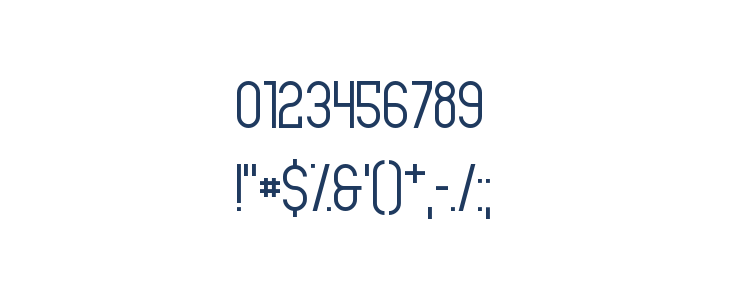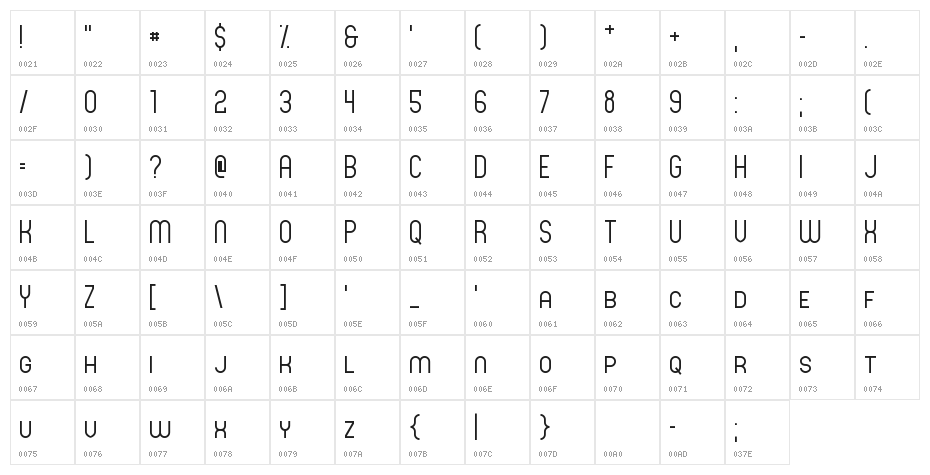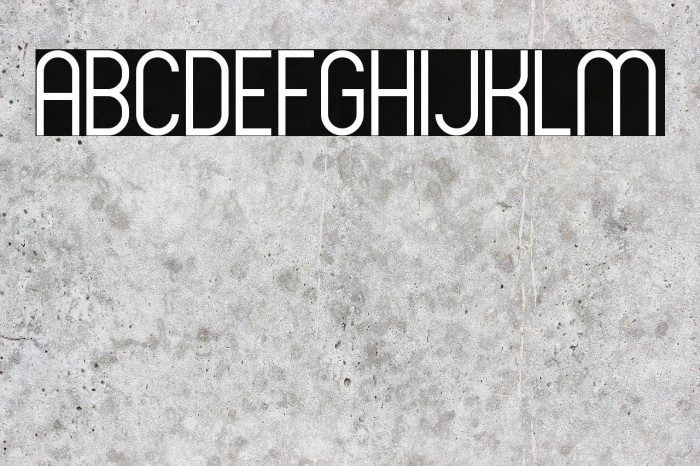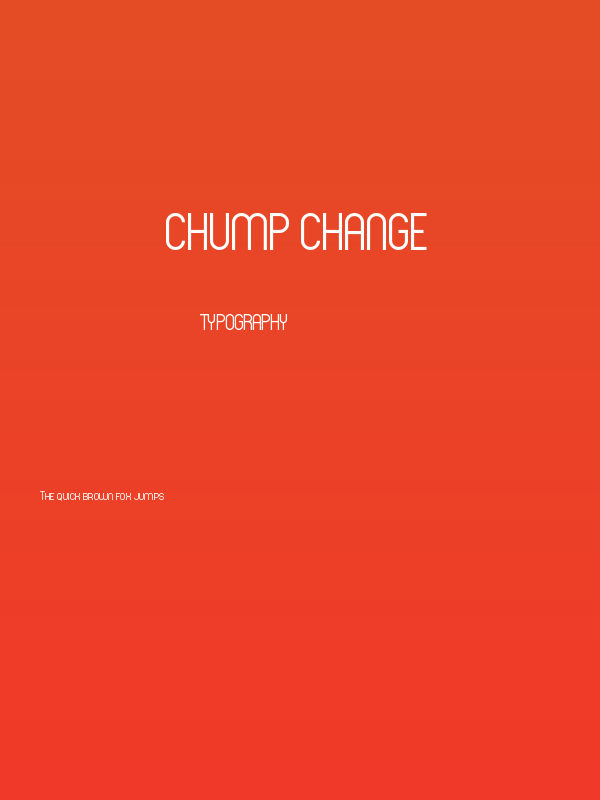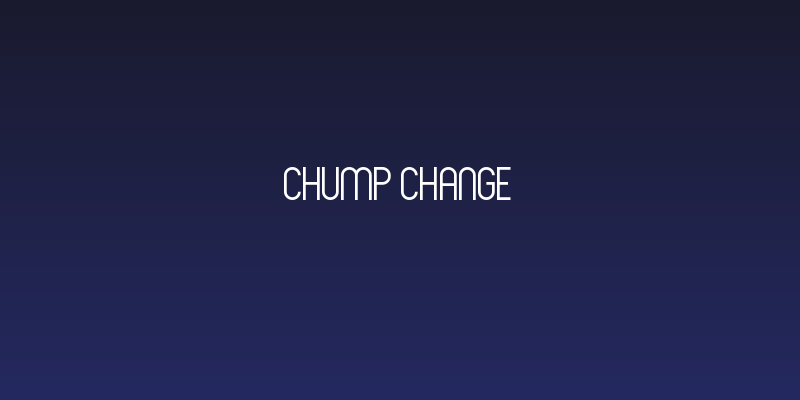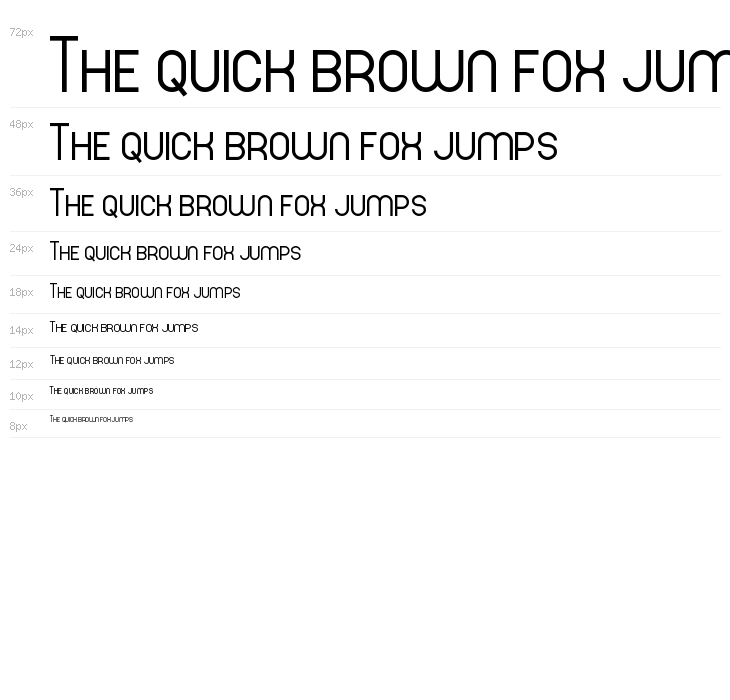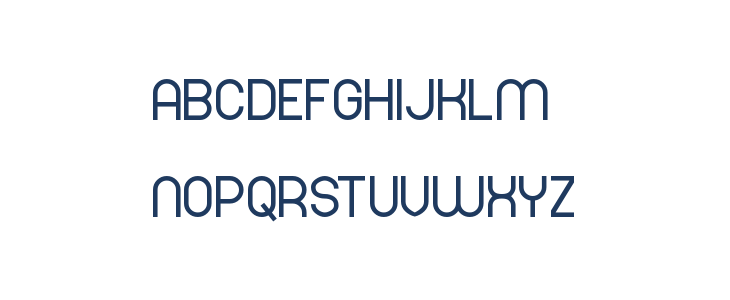
Chump Change Font
Chump Change Description
This font features a modern, geometric design with clean lines and a uniform stroke width. The characters are tall and narrow, giving it a condensed appearance. The uppercase letters have a consistent height, while the lowercase letters maintain a similar width, creating a cohesive look. The numbers are distinct and easy to read, matching the overall style of the alphabet. Special characters are well-integrated, maintaining the geometric theme. This font is ideal for projects that require a contemporary and sleek aesthetic.